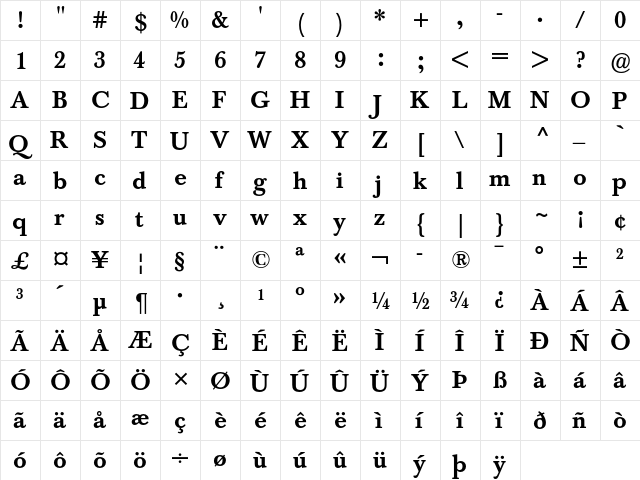
Berthold Baskerville Medium Font Preview
Berthold Baskerville Medium
Berthold Baskerville Medium Font Details
Design Context for Berthold Baskerville Typeface
Berthold Baskerville offers clean, dependable letterforms without strong stylistic allegiance, making it a practical choice for designers who need flexibility.